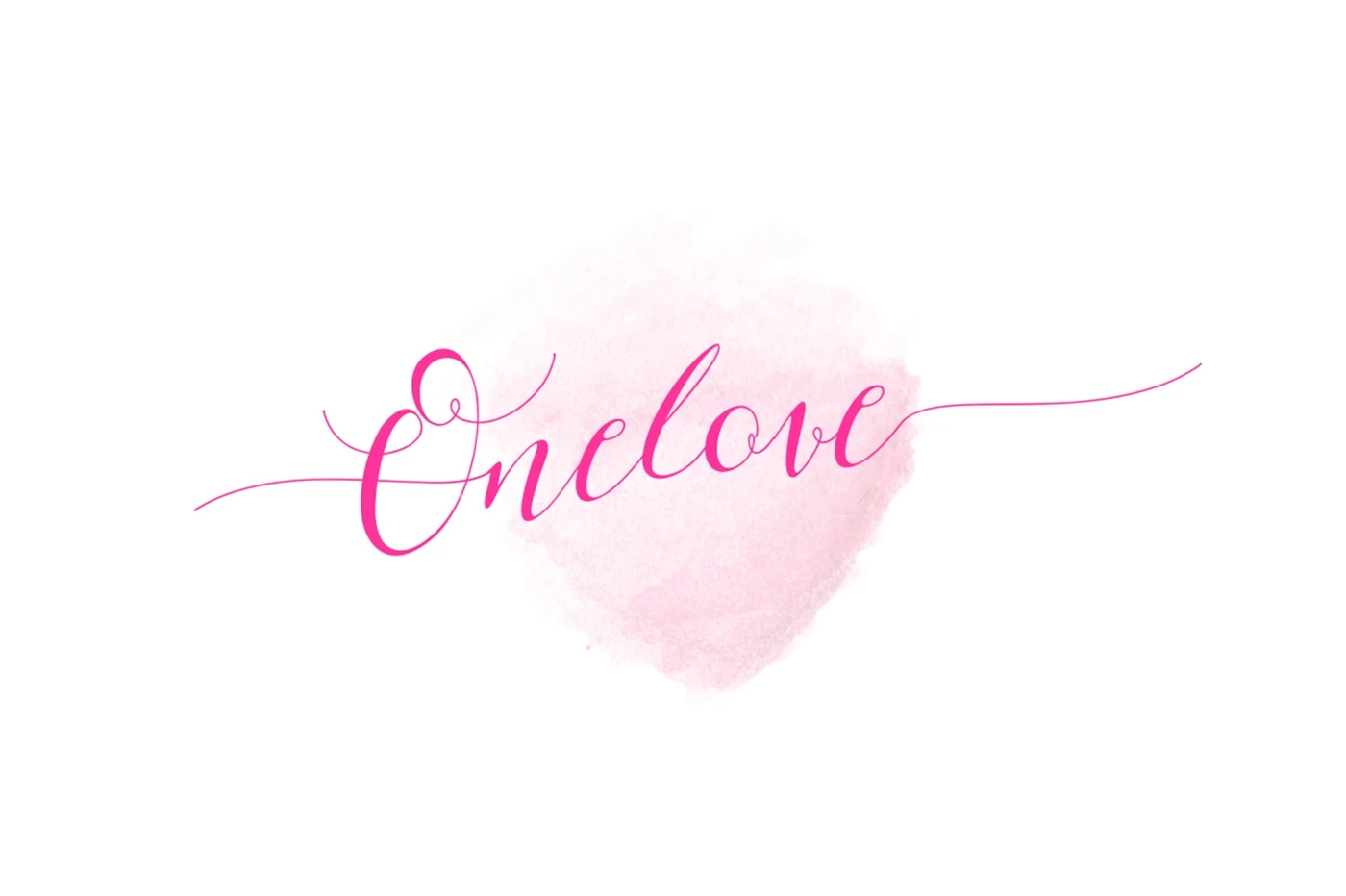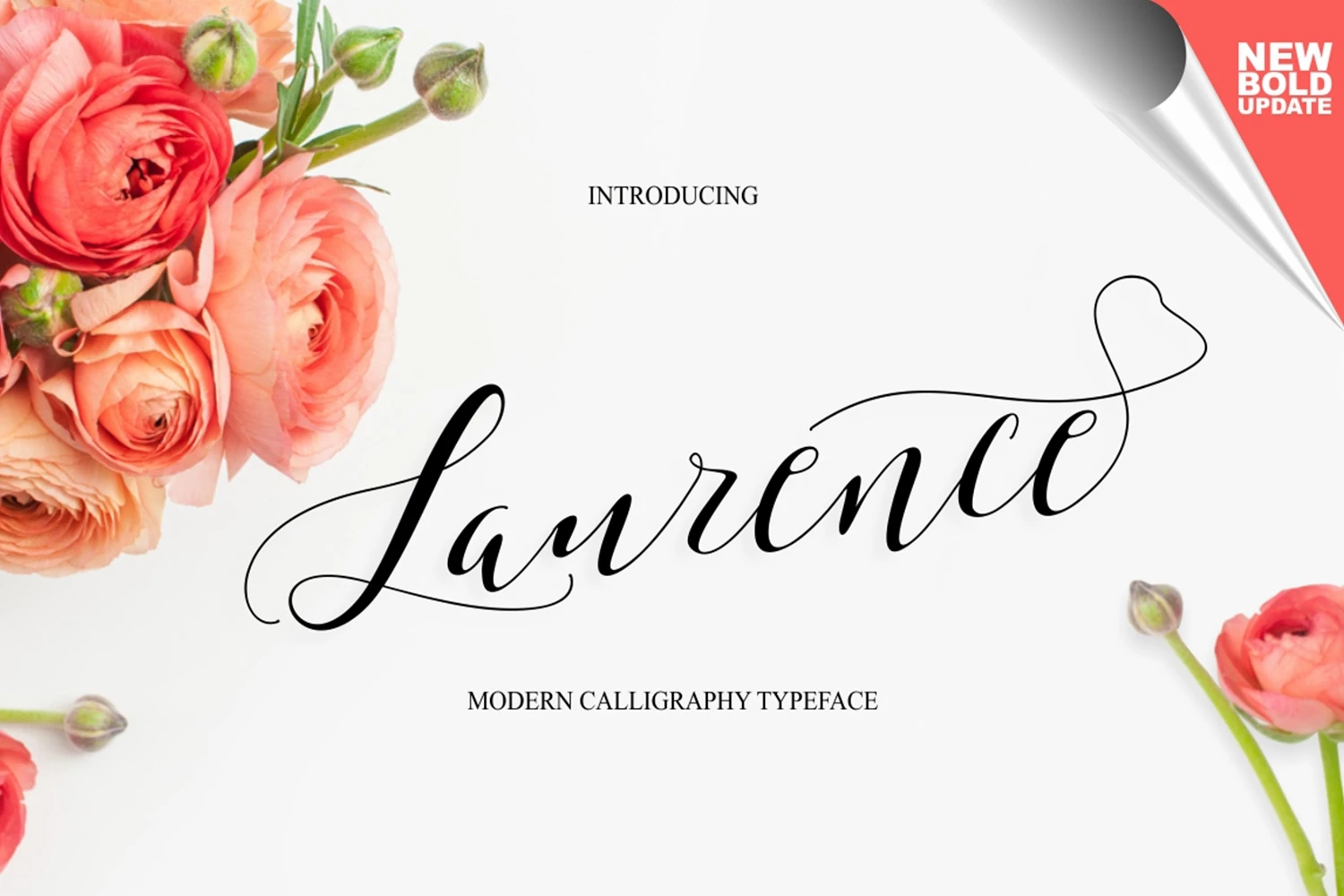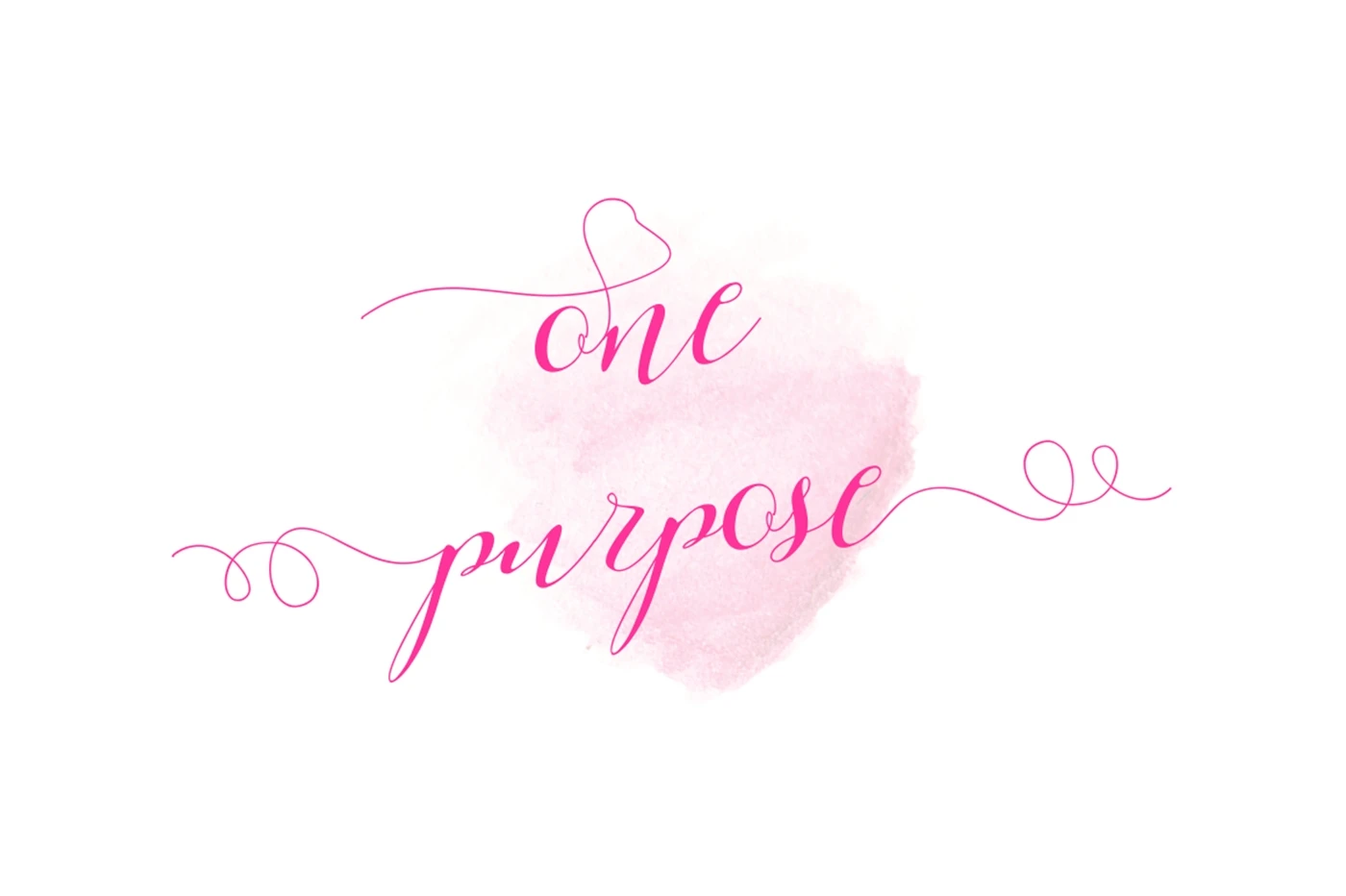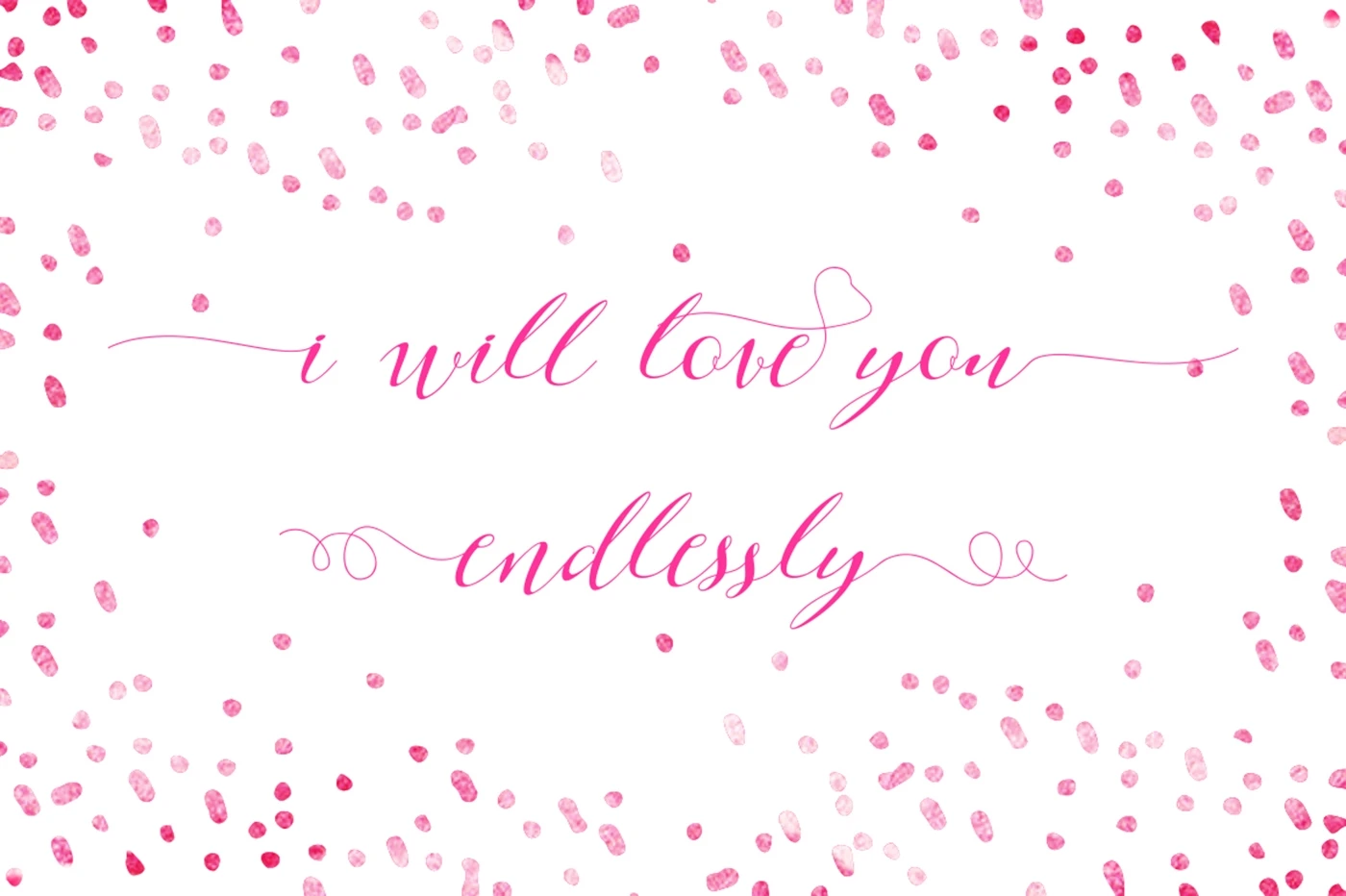
Laurence Script is handwritten stylish copperplate calligraphy fonts, combines from copperplate to contemporary typeface with a dancing baseline, classic and elegant touch. Can be used for various purposes.such as headings, signature, logos, wedding invitation, t-shirt, letterhead, signage, lable, news, posters, badges etc.